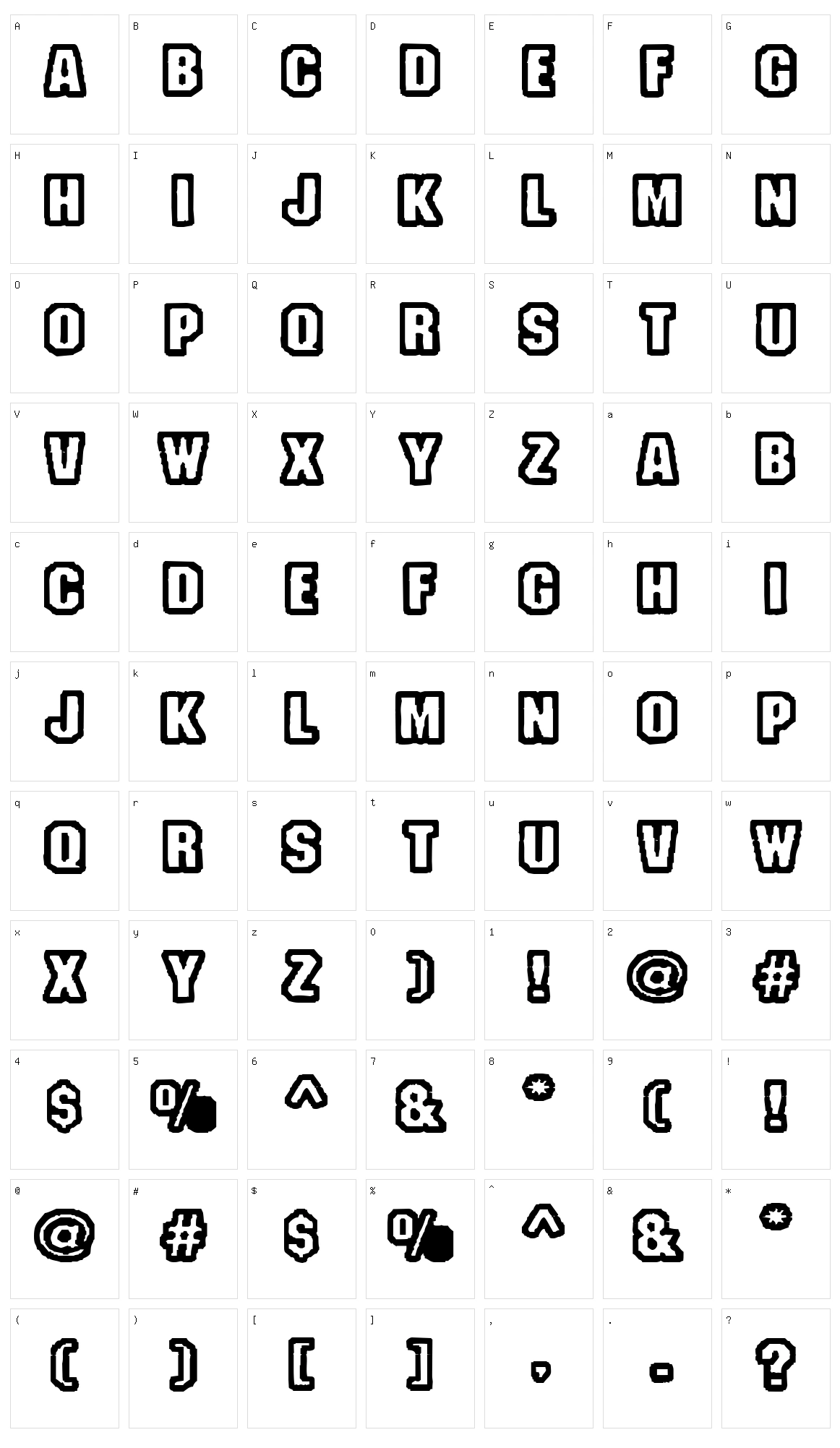
The free font Fanatika is carefully designed by The Font Emporium, showcasing a thoughtful balance of creativity and usability and falls under the Destroy font style. When you download the ZIP file, it contains only 33.62 KB of font files, making it lightweight and quick to download. Please review the license details below to understand permitted usage and distribution rights. If license information is not available, we recommend using this font for personal projects only or contacting the author directly for commercial usage permissions.